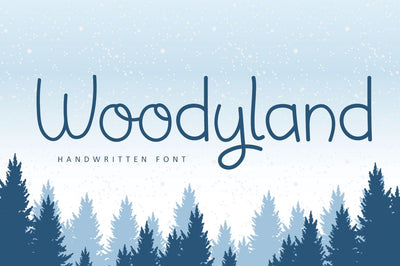
Woodyland - Winter Handwritten Font
Woodyland is a cute and friendly handwriting font that is perfect for winter design or crafty projects. Use it for branding, crafts for decor, invitations, and more!